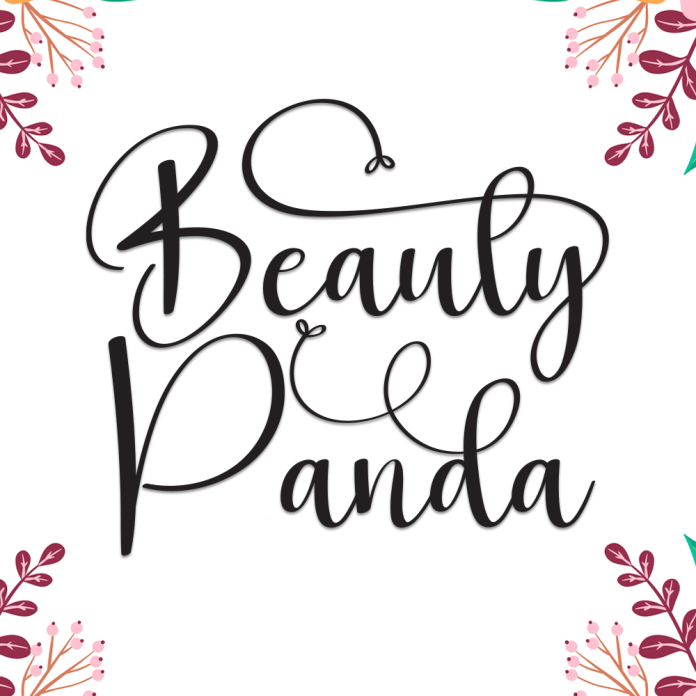
Beauty Panda is a cute and expressive handwritten font that captures the charm of playful lettering. With a gentle, casual flow and slightly bouncy baseline, it adds personality and warmth to every design it touches. Ideal for children's projects, greeting cards, branding, quotes, and social media content.
Whether you're creating something sweet or cheerful, Beauty Panda brings a fun and heartfelt flair.
Handwriting Font Style
Whimsical & Smooth Letterforms
Uppercase & Lowercase
Numbers & Punctuation
Multilingual Support
Bring joy and creativity into your designs with the lovable charm of Beauty Panda!